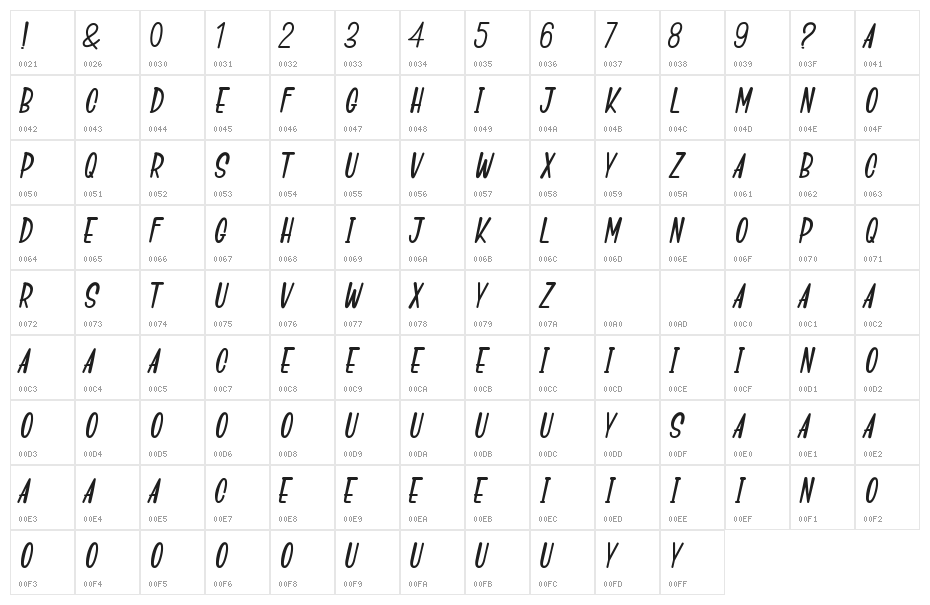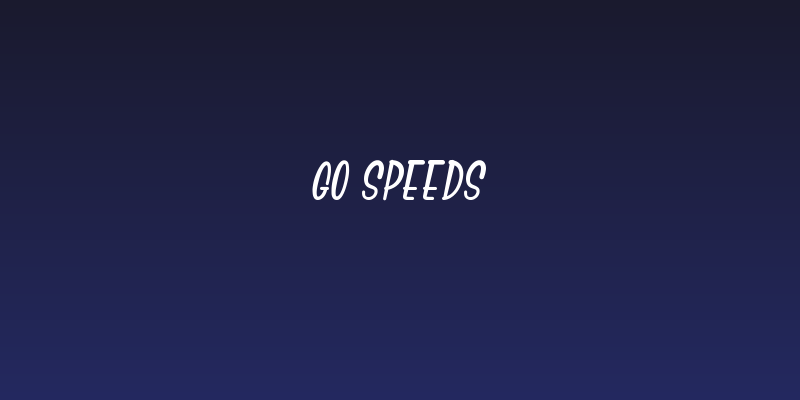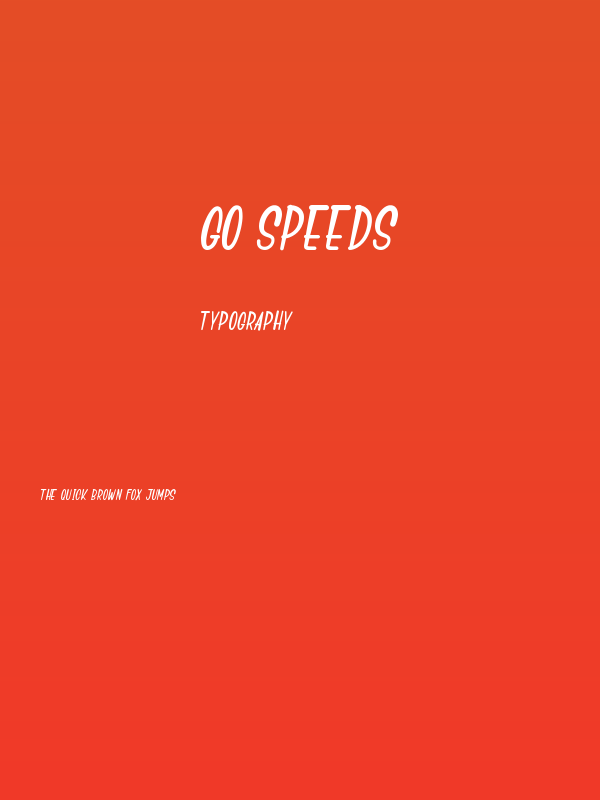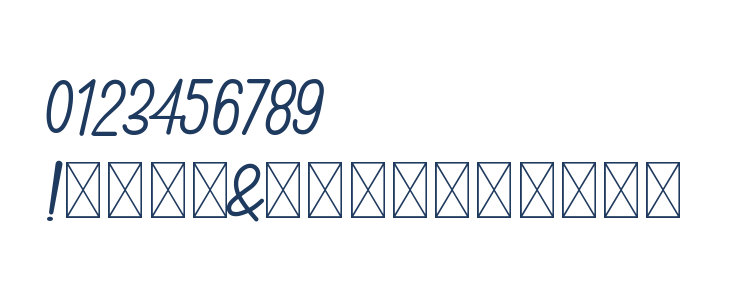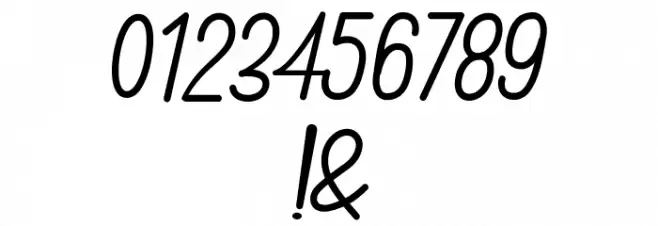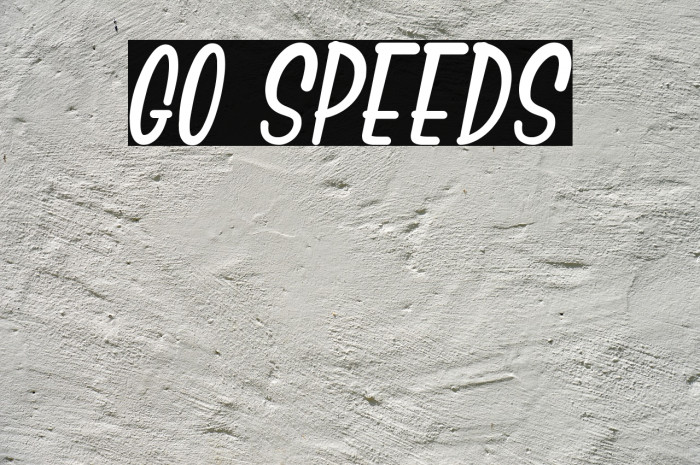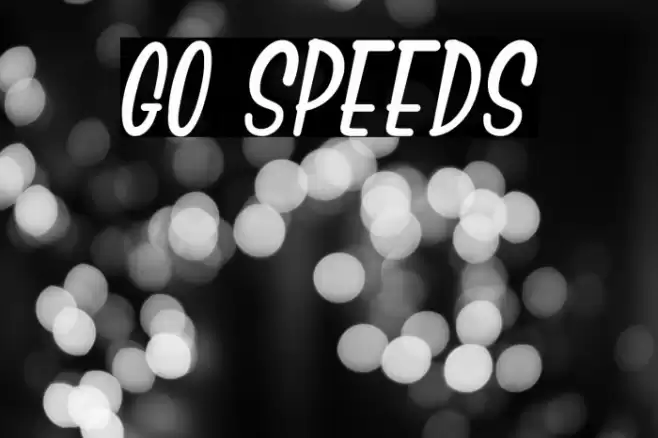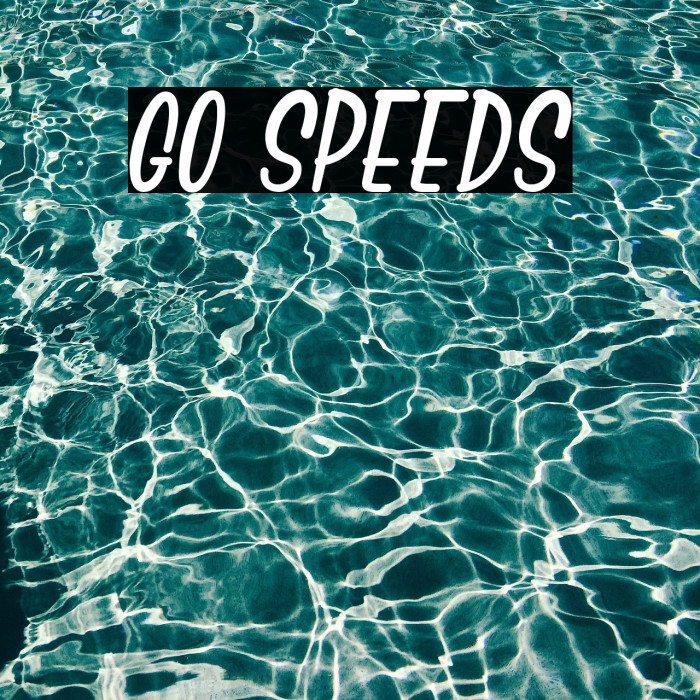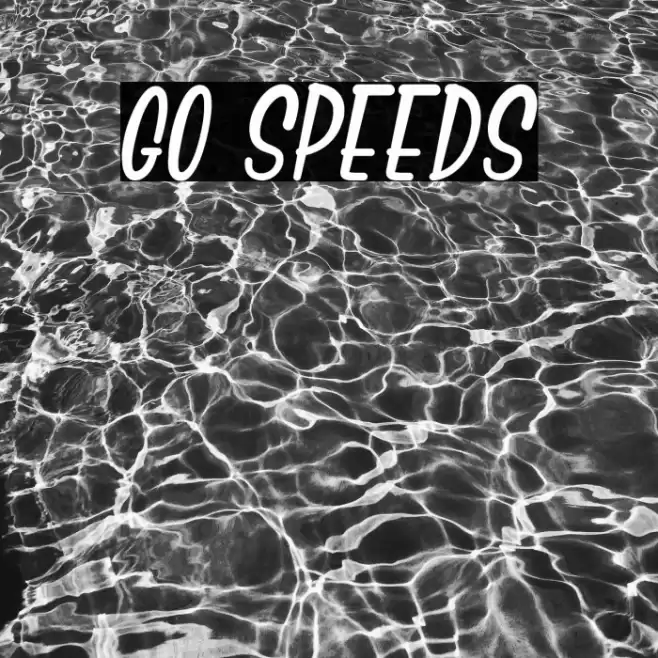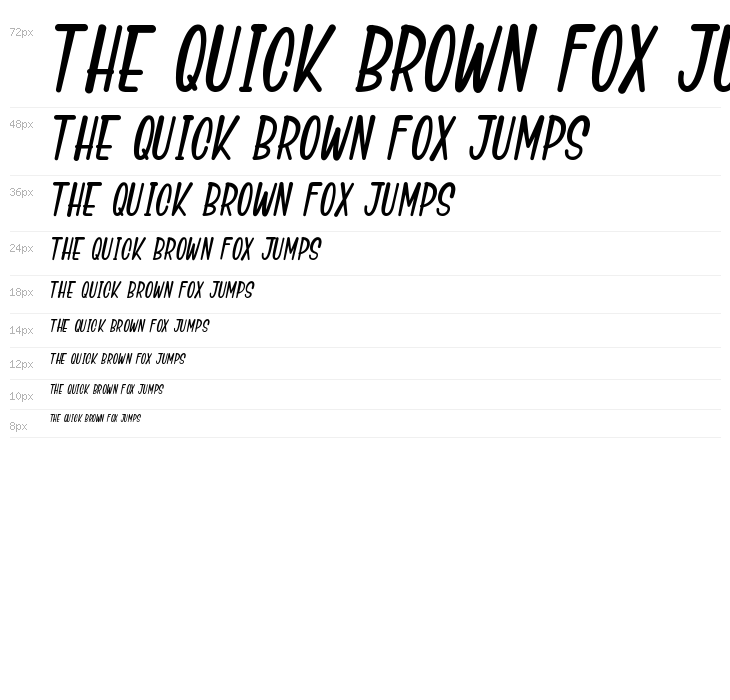
Go Speeds Font
Go Speeds Description
This font features a playful and energetic style with a handwritten feel. The characters are slightly slanted, giving a sense of motion and dynamism. The strokes are consistent in thickness, providing a uniform appearance across all letters and numbers. The uppercase and lowercase letters are well-proportioned, maintaining readability while adding a touch of casual flair. The numerals are clear and distinct, matching the overall aesthetic of the font. Special characters like the exclamation mark and ampersand are designed to complement the letterforms, enhancing the cohesive look of the typeface.
| Proposed Projects | Ideal for projects that require a casual and energetic vibe, such as greeting cards, posters, and social media graphics. |